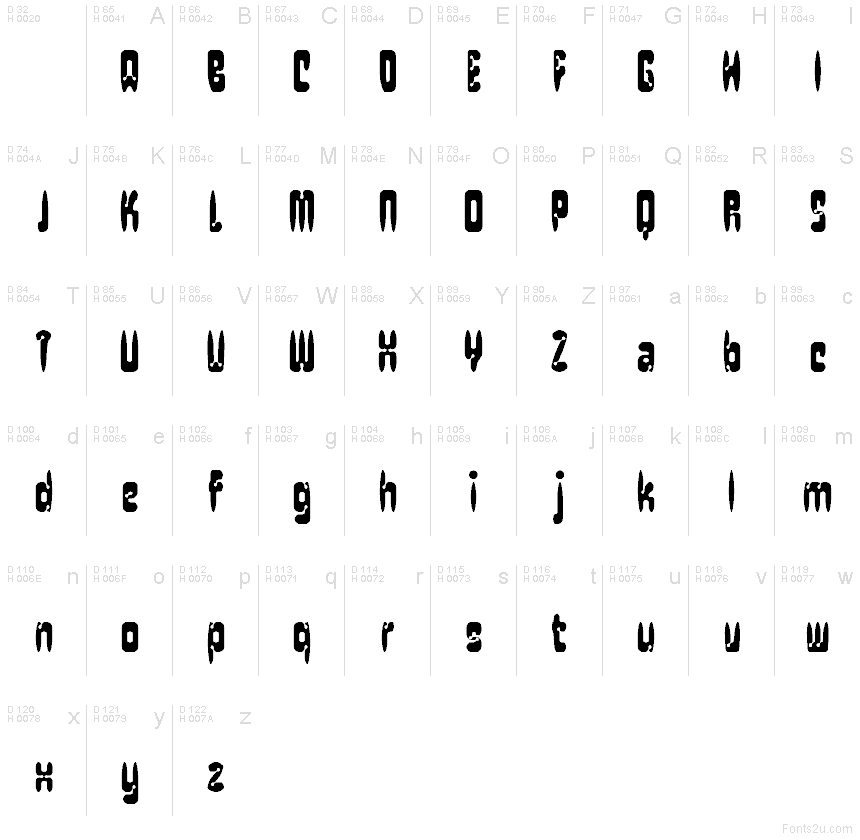
MaldineDrawn-Regular Demo
Maldine Drawn font by Craft Supply Co. is a bold, condensed, display font inspired by retro aesthetics. Designed with rounded edges and consistent thickness, it combines elements of groovy typography with a modern touch for easy seamless integration across various modern designs projects.